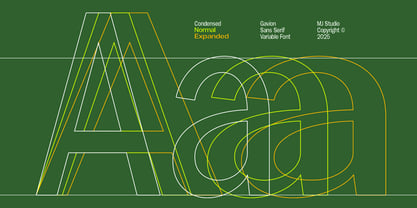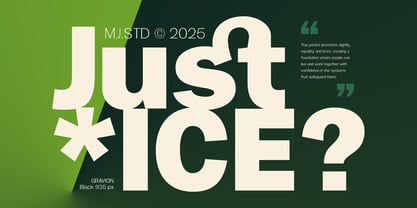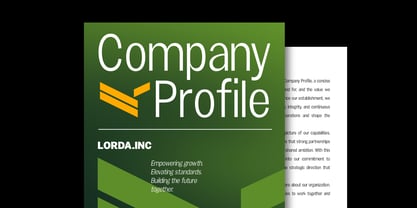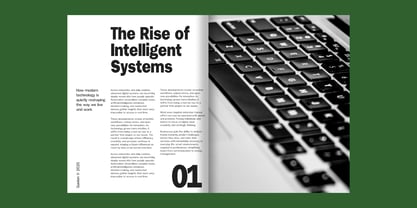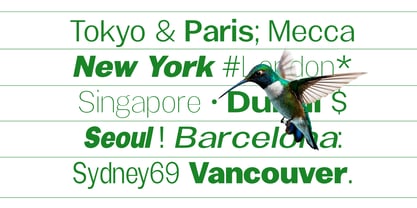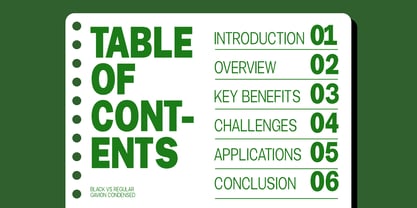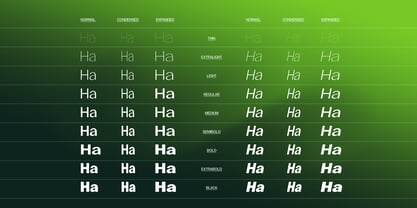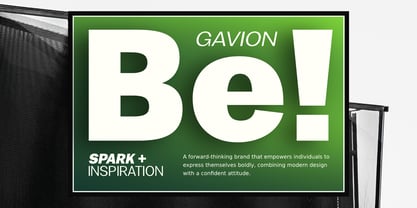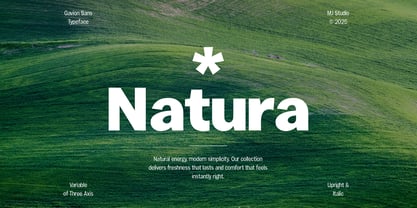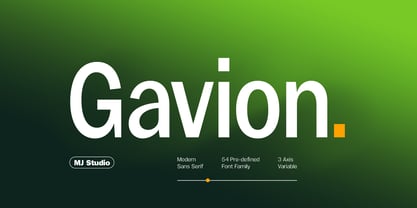
Gavion
Die Schriftfamilie Gavion wurde von Ramadhan - entworfen und von Mj Studio veröffentlicht. Gavion enthält 55 Stile und Familienpaketoptionen. Mehr über diese Familie
Gavion is a modern sans serif that combines clean geometry with subtle humanist warmth, creating a look that’s both contemporary and highly readable. With 54 styles and a 3-axis variable font, Gavion offers exceptional flexibility for branding, editorial design, UI, and high-impact visual campaigns. Its organic touches add personality without sacrificing professionalism—perfect for brands that want a modern, confident, and distinctive presence.